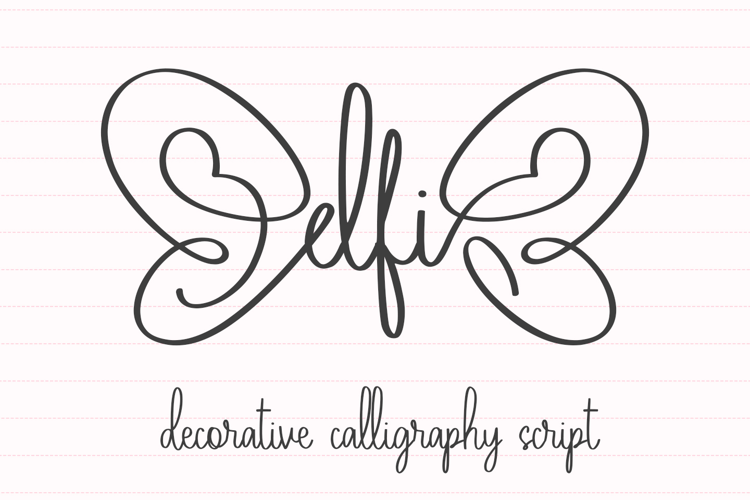
Elfi
Elfi is a decorative calligraphy font that exudes elegance and whimsy.
Designed with graceful, flowing strokes, Elfi features enchanting titling and ending swashes that resemble delicate butterfly wings, adding a touch of fantasy and charm to every letterform. Perfect for wedding invitations, branding, logos, and other sophisticated projects, this font transforms text into a visual statement with its artistic curves and romantic flair.
Elfi combines the timeless beauty of classic calligraphy with a modern, nature-inspired twist.